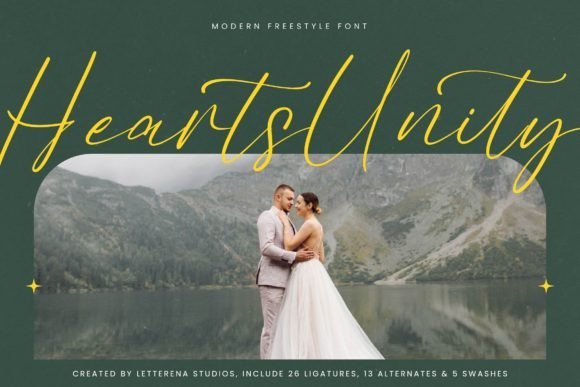
Creating Something Beautiful from the Heart
Have you ever been struck by inspiration in the middle of the night, with an idea swirling in your mind like a whirlwind of creativity? That’s exactly what happened to me when I stumbled upon the stunning Hearts Unity Font. This exquisite Luxury Script font from Letterena is the perfect tool for designers looking to add a touch of elegance and sophistication to their projects.
The Hearts Unity Font is designed to elevate any project, from logos and branding to homeware designs and product packaging. Its versatility makes it an invaluable asset for designers, allowing them to convey their message in a beautiful and luxurious way. Whether you’re working on a special event invitation, a book cover, or a photography project, the Hearts Unity Font is sure to add that extra touch of class.
- Unique Characteristics: The Hearts Unity Font features a unique blend of modern and vintage elements, with a distinctive heart-shaped design that adds a touch of whimsy and personality to any text.
Designer Review: Hearts Unity Font
Overall, I was pleasantly surprised by the Hearts Unity Font, but it’s not without its limitations.
- The font’s bold and playful nature makes it perfect for creating eye-catching headings and titles.
- The font’s versatility allows it to be used in a variety of contexts, from logos and branding to digital products and print materials.
- The font’s customization options are extensive, allowing designers to tweak the font’s style and feel to suit their needs.
- The font’s script-style letters can be difficult to read in certain contexts, particularly in small sizes or when used in body text.
- The font’s ornate nature can make it feel overly decorative, which may not be suitable for all design projects.
- The font’s complexity can make it challenging to pair with other fonts, which may limit its usability in certain design contexts.
Overall, I would give the Hearts Unity Font a solid 4 out of 5 stars. While it excels in certain areas, its limitations hold it back from being a truly exceptional font. However, with careful consideration and use, it can be a valuable addition to any designer’s toolkit.
Tip: Use the Hearts Unity Font to add a touch of whimsy and romance to your designs.
Tip: Use the Hearts Unity Font to add a touch of elegance and sophistication to your designs.
Tip: Use the Hearts Unity Font to add a touch of personality and charm to your presentations and documents.
The Hearts Unity Font is perfect for:
- Valentine’s Day and anniversary designs.
- Romantic and whimsical branding and marketing materials.
Tip: Use the Hearts Unity Font to add a touch of love and romance to your designs.